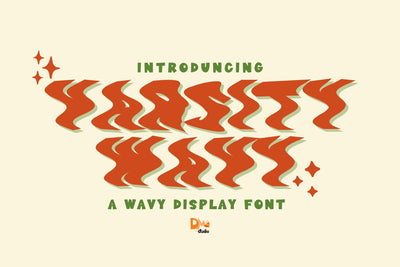
Varsity Wavy
Varsity Wavy – Playful & Retro Wavy Font
Varsity Wavy is a fun and stylish display font featuring bold letterforms with a smooth, wavy effect. This unique typeface blends retro aesthetics with a modern twist, making it perfect for creative projects such as posters, social media graphics, branding, packaging, and eye-catching headlines. Its fluid movement and bold presence add a dynamic and playful touch to any design.
- Wavy & Bold Lettering: A creative take on classic typography with smooth, flowing lines.
- Perfect for Retro & Modern Designs: Great for branding, posters, product packaging, and creative projects.
- Playful & Eye-Catching Aesthetic: A unique style that adds movement and personality.
- Complete Character Set: Includes uppercase, lowercase, numbers, punctuation, and multilingual support.